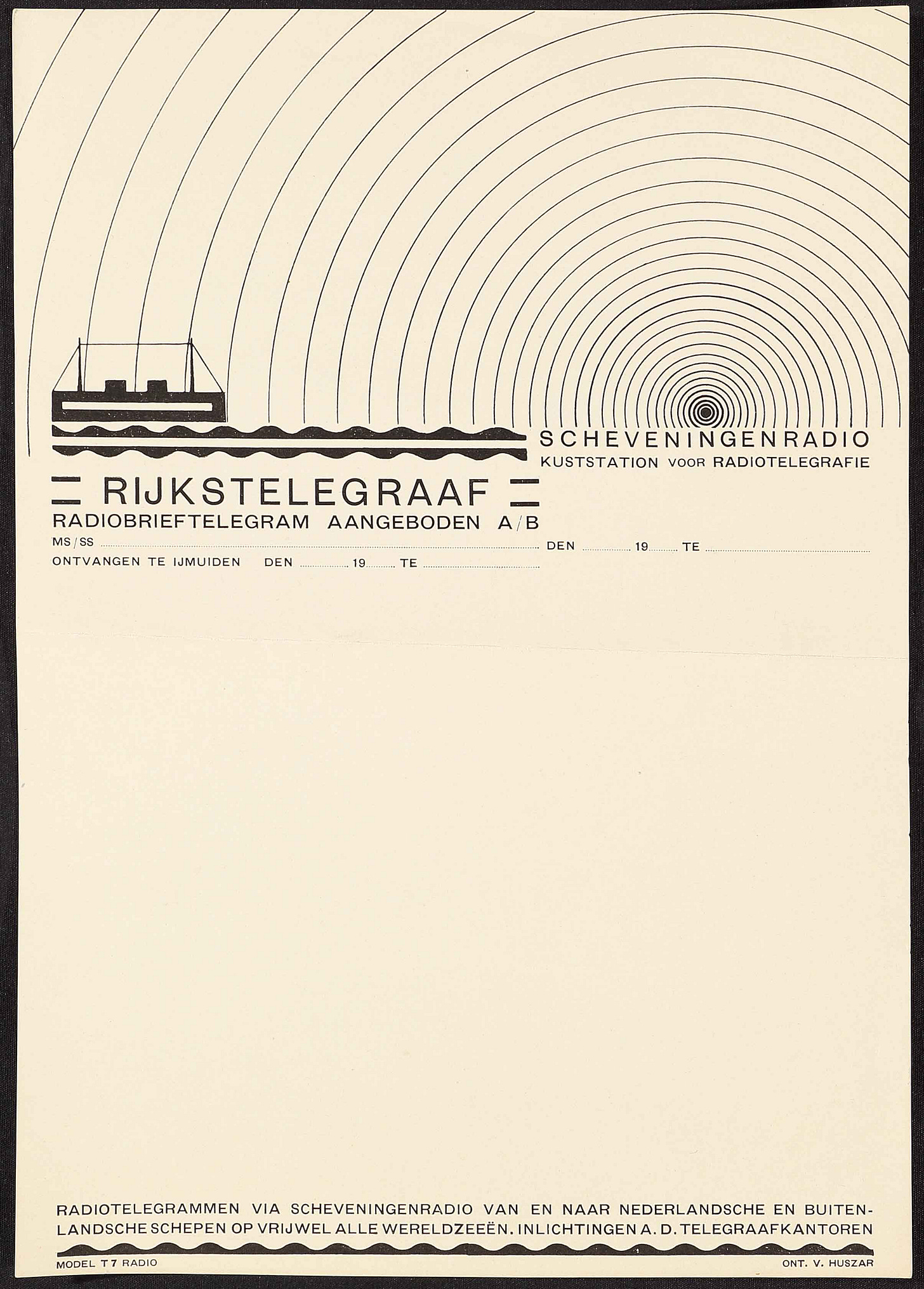
Born in Budapest in 1884, Vilmos Huszár was a graphic designer and founding member of De Stijl, the Dutch art movement known for its bold geometry and abstraction. In 1931, he designed this beauty for Rijkstelegraaf, the Dutch State Telegraph Service. It was used for radiotelegrams sent via Scheveningen Radio, the Netherlands’ main coastal radio station, its concentric circles depicting radiowaves transmitting messages across the seas.
Vilmos Huszár (Dutch, born Hungary. 1884–1960)
Letterhead: Rijkstelegraaf, Radiobrieftelegram (State Telegraph, Radio Telegram), Scheveningen, 1931
Lithograph
11 ½ x 8” (29.2 x 20.4 cm)
Merrill C. Berman Collection